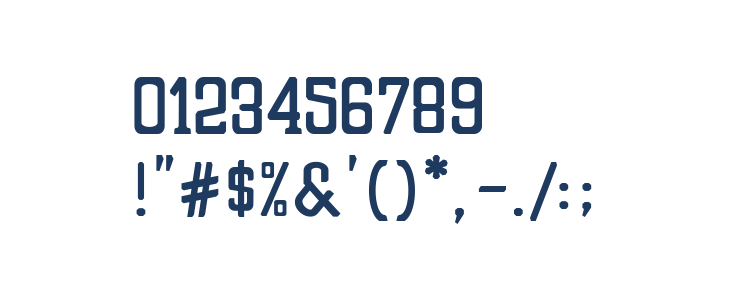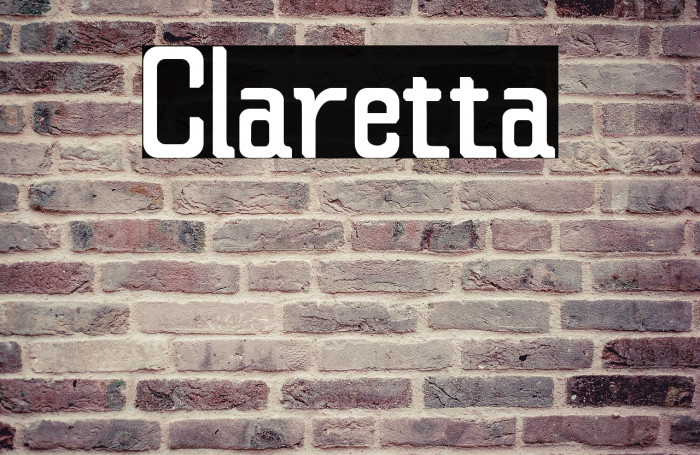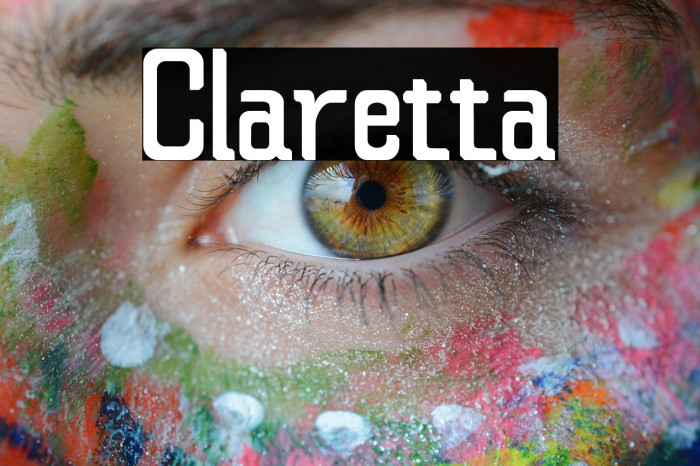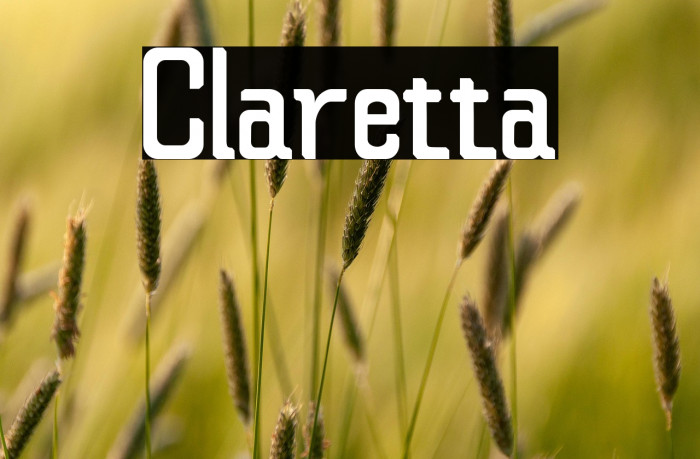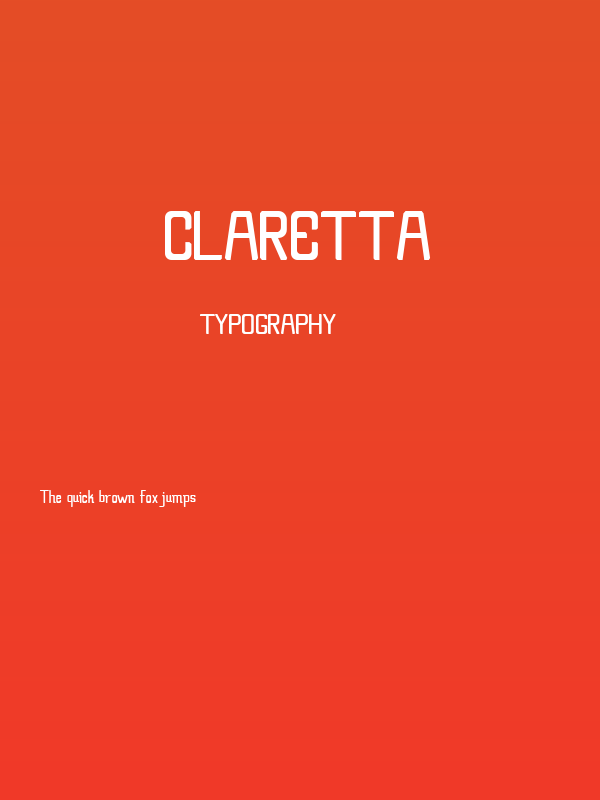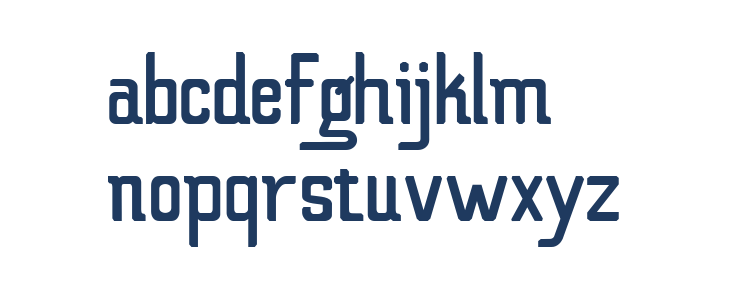
Claretta Font
Claretta Description
This font features a bold and structured design with a modern aesthetic. The uppercase letters are tall and narrow, with a consistent stroke width that gives them a strong presence. The lowercase letters maintain a similar structure, offering a cohesive look throughout. The numerals are clear and legible, matching the overall boldness of the alphabet. Special characters are well-integrated, maintaining the font's uniform style. This font is suitable for projects that require a modern and impactful typeface.
| Proposed Projects | Ideal for branding, headlines, posters, and digital media where a strong, modern typeface is needed. |